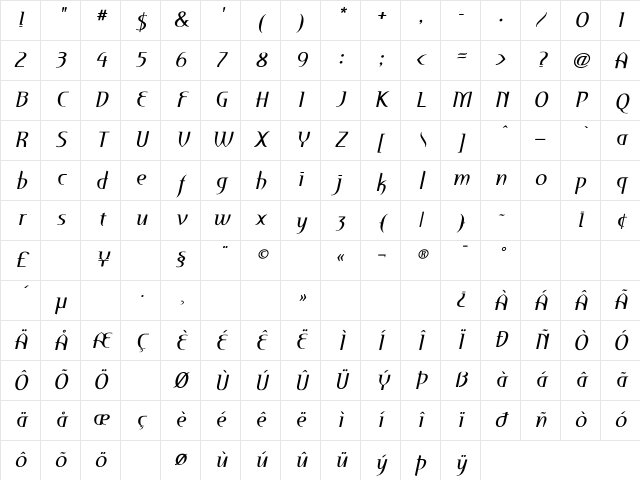
Perceval Italic Free Font
Perceval Italic
Foundry: (c) Rebels, Designed by Michel Valois
Design Context for Perceval
Perceval is a composed and adaptable typeface that performs quietly and consistently across a wide range of design contexts. The slanted form adds forward momentum and visual energy.
Pro Tip: Use Perceval for emphasis, pull quotes, and subheadings where its slanted energy can add rhythm to the layout.